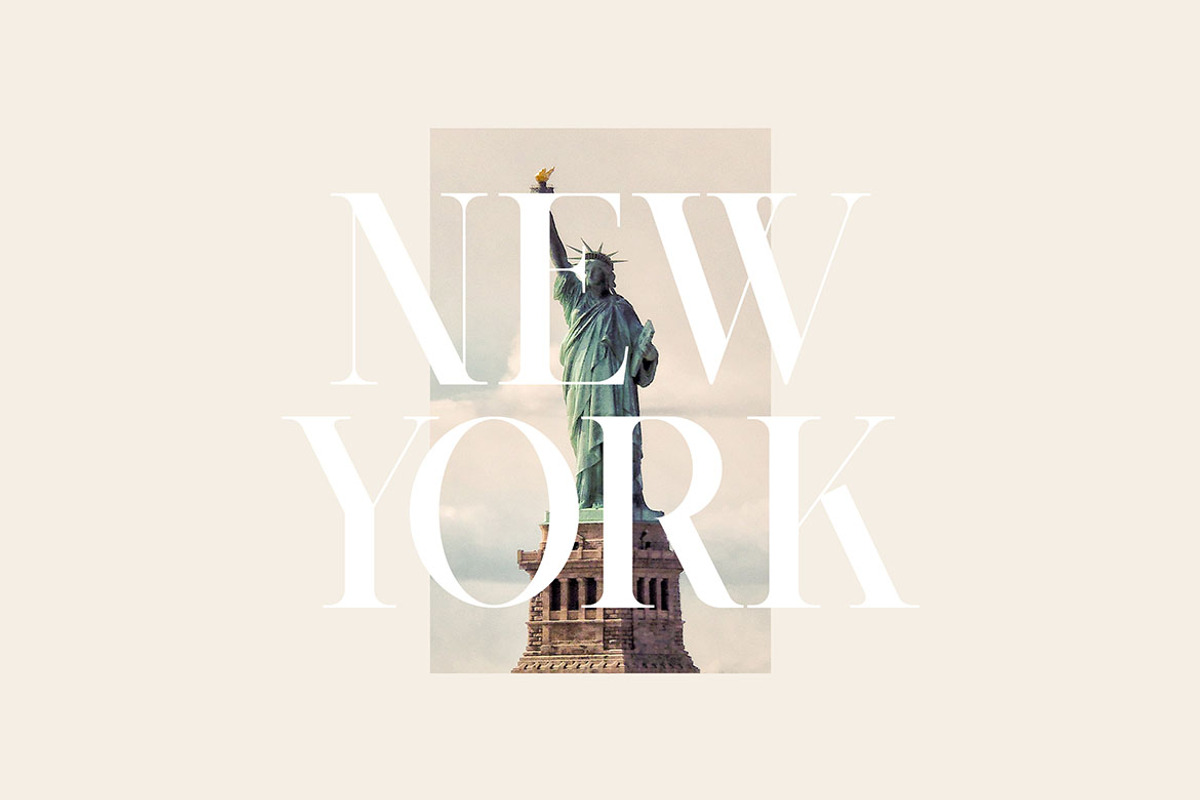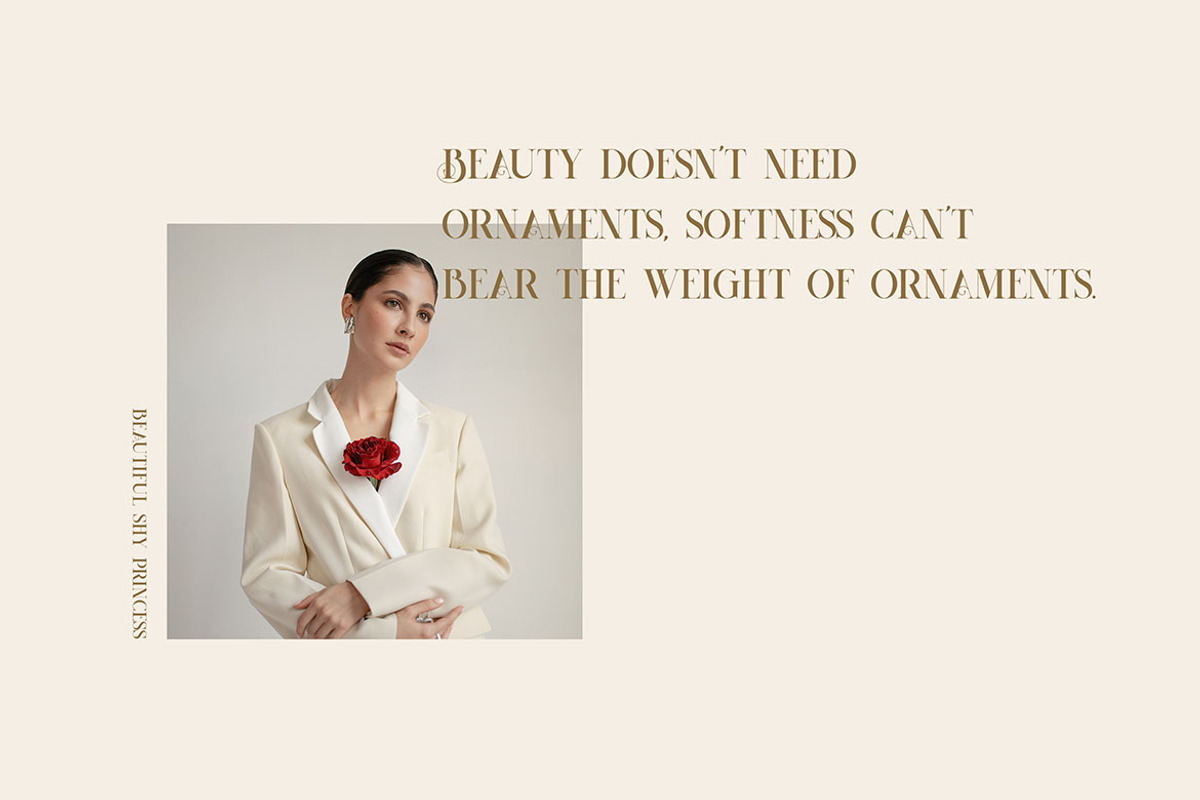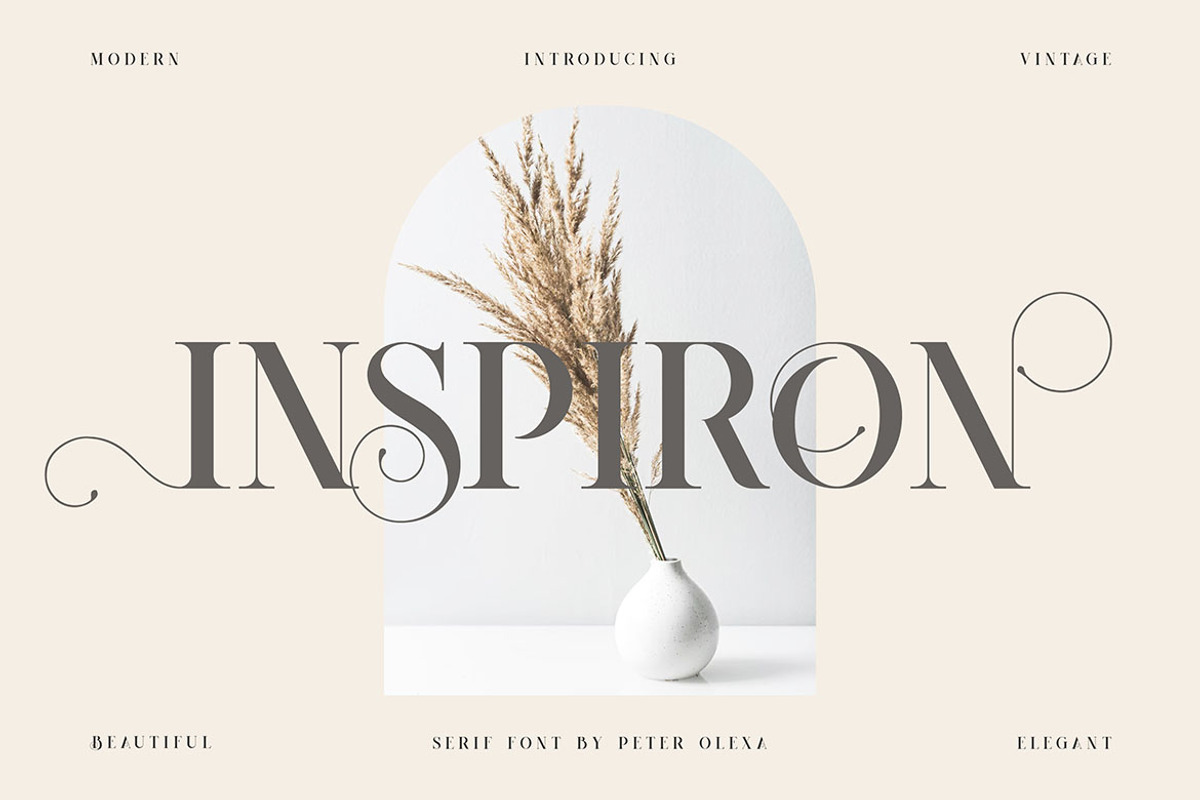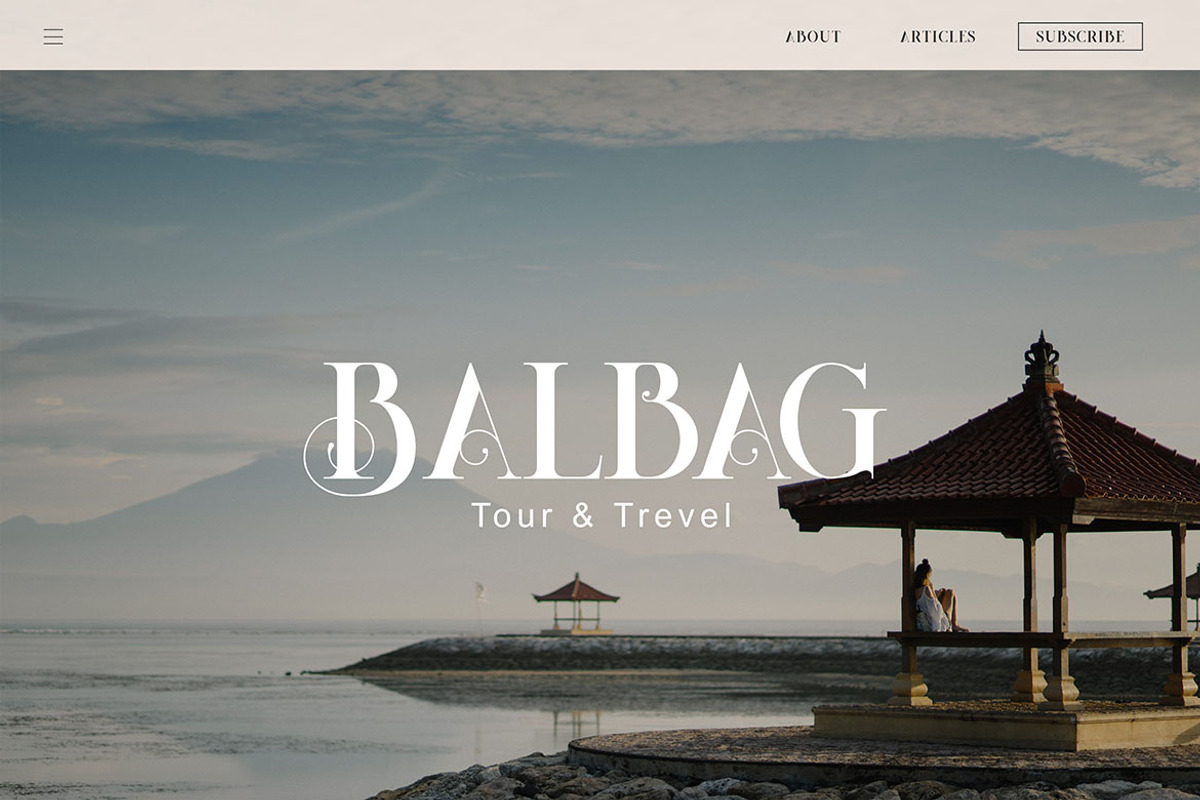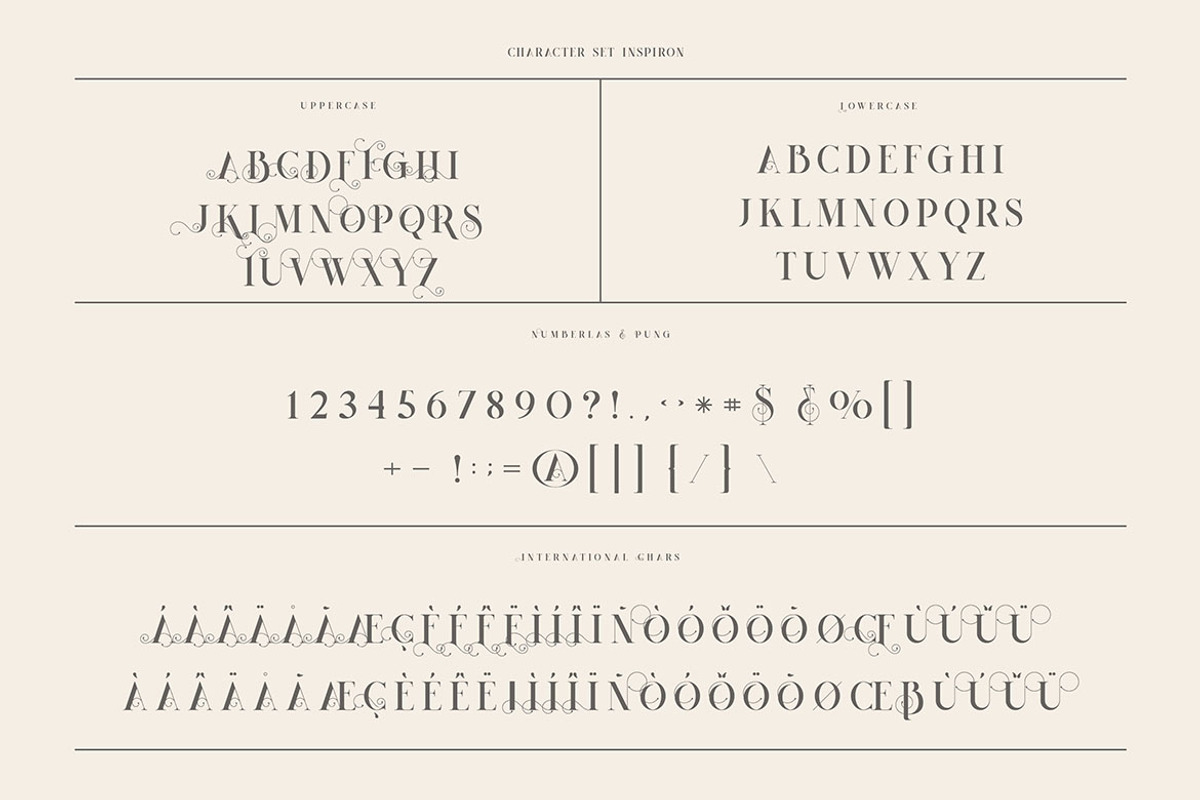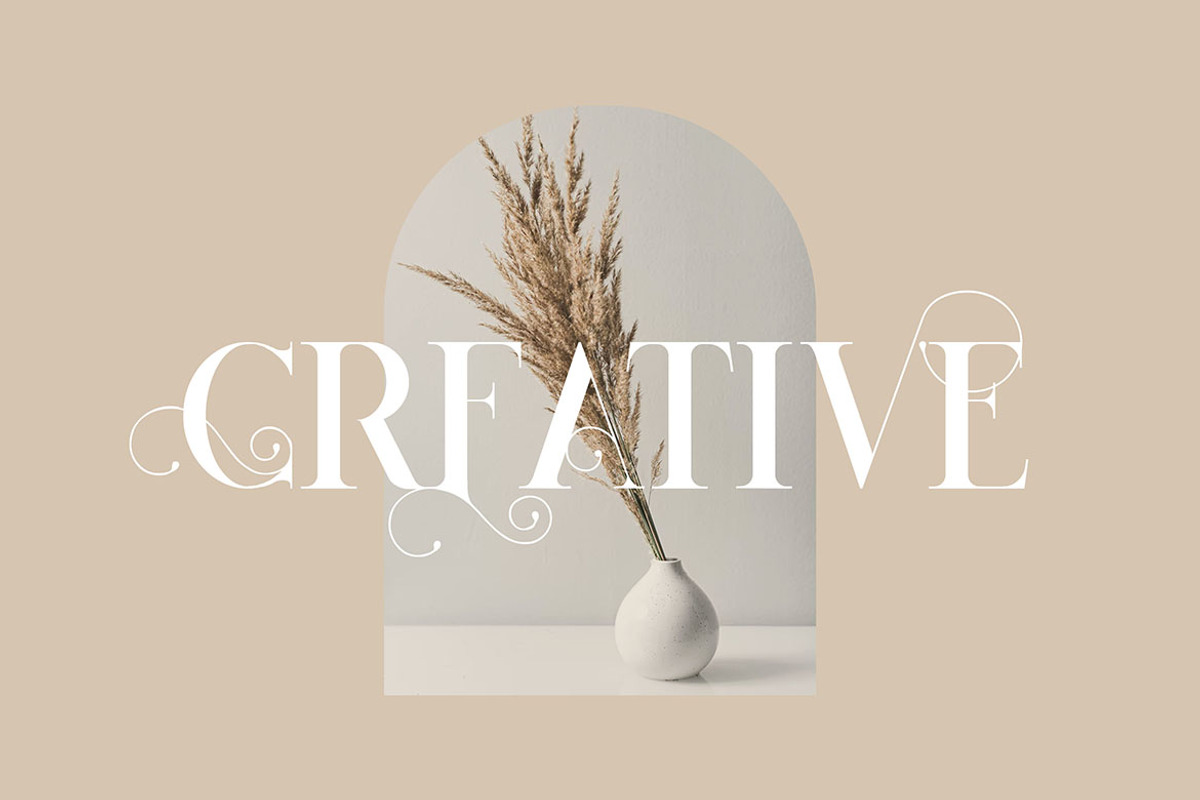
Inspiron - Vintage Serif Font
Unique vintage & ornamental style custom serif font. Comes with multilingual support - great for your new logo or branding project.
- Great for retro or vintage style branding projects